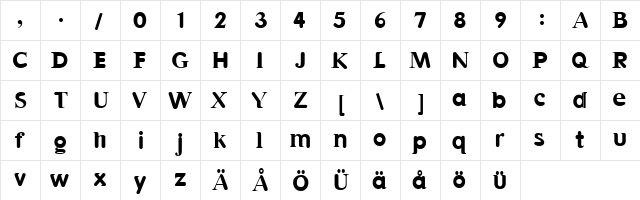
Halvar Regular
Design Context for Halvar Typeface
Halvar offers clean, dependable letterforms without strong stylistic allegiance, making it a practical choice for designers who need flexibility.
Pro Tip: Use Halvar in both headline and body roles to test its range before committing to a single application.